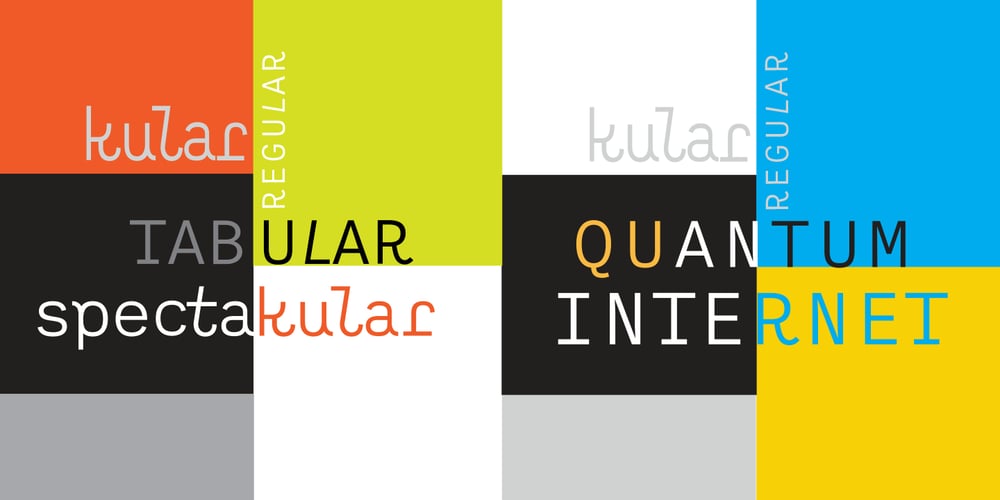
Kular Font Family was designed by Robbie de Villiers and published by Wilton Foundry. Kular contains 1 styles and family package options. I set out to design a monospaced font and decided it would look way better if it wasn’t. It gave me the freedom to make the individual glyphs more interesting while retaining the mono-look. The numerals are tabular! Enjoy!